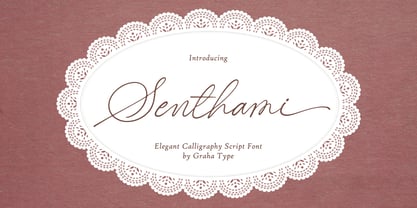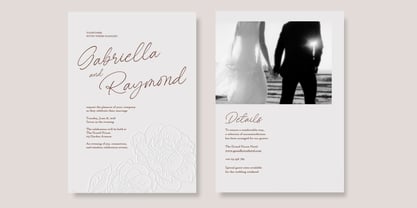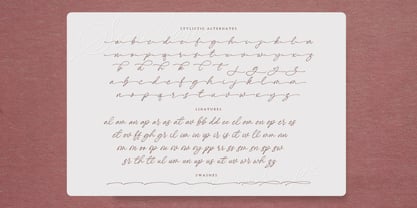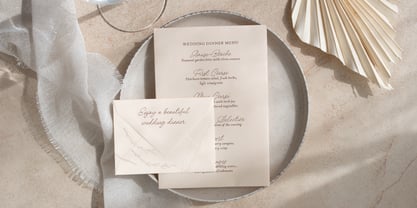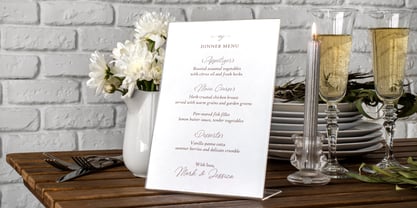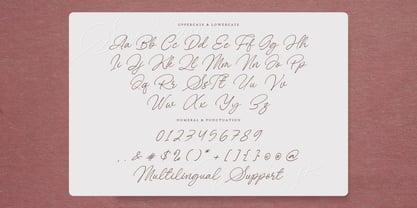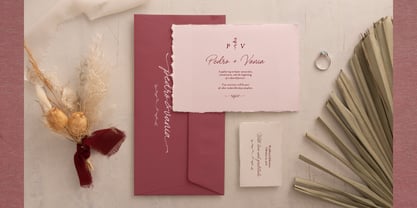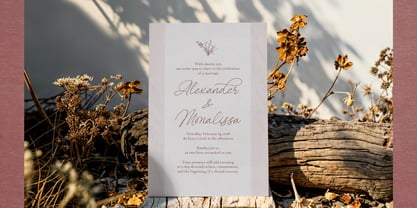
Senthami
by Graha Type
The Senthami Font Family was designed by Toni Nugraha and published by Graha Type. Senthami contains 1 styles. More about this family
Senthami is an elegant calligraphy script font with graceful curves and delicate swashes, designed to create a luxurious and romantic handwritten look. This font is perfect for signature logos, wedding invitations, fashion and beauty branding, editorial headlines, and premium packaging, making it ideal for designs that need a classy and timeless feel.
Designers: Toni Nugraha
Foundry: Graha Type